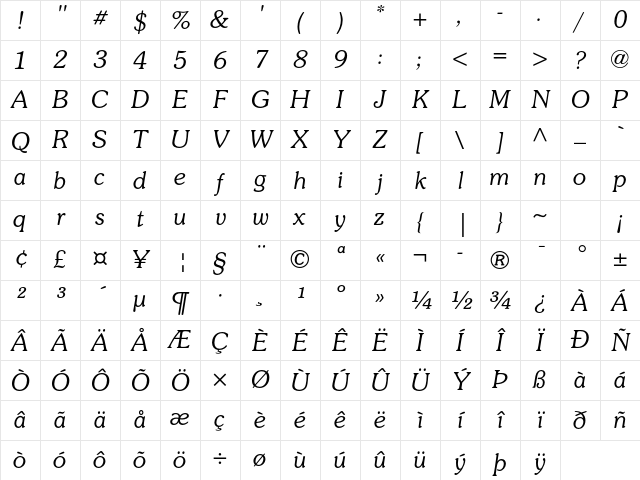
Complete Adite Italic glyph index. Displaying only characters natively supported by Adite Italic font.
Adite is a composed and adaptable typeface that performs quietly and consistently across a wide range of design contexts. The slanted form adds forward momentum and visual energy.
Pro Tip: Use Adite for emphasis, pull quotes, and subheadings where its slanted energy can add rhythm to the layout.